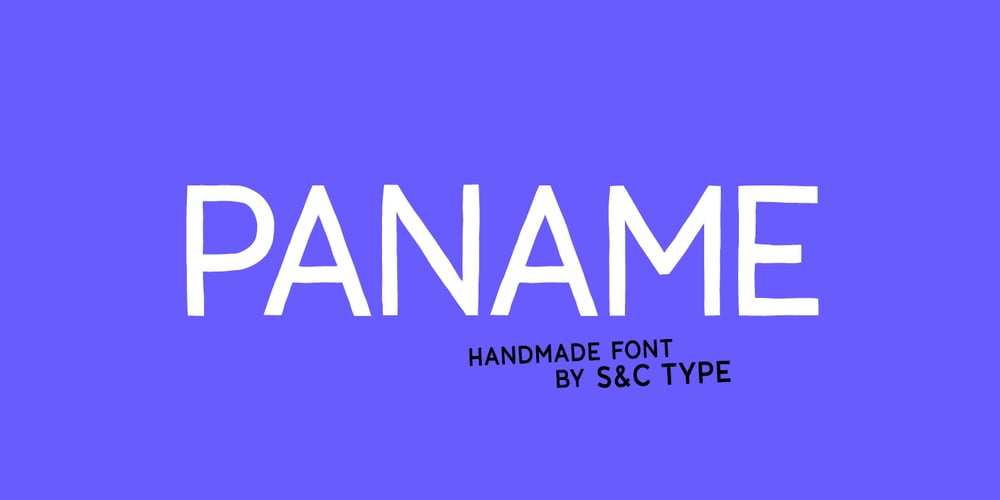
Paname SC
Paname SC font
Paname SC Font Family was designed by Julien Saurin, Fanny Coulez and published by S&C Type. Paname SC contains 12 styles and family package options. Paname is a handwritten font designed by S&C Type.We wanted to create a retro pop font with a parisian spirit, Paname being the argot name of Paris.The complete family includes 3 weights with their 3D and outline effects to improve your designs, 12 fonts in total, with standard and extended latin characters. There are also small packs for each weight.We hope you will enjoy our work :)Merci beaucoup!